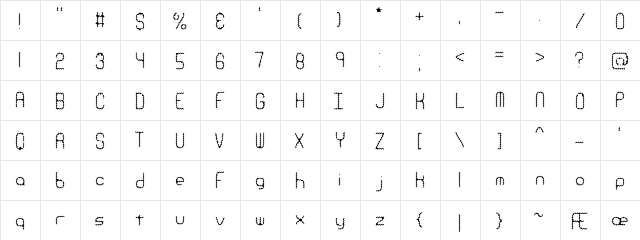
Ravenous Caterpillar BRK Regular
Design Context for Ravenous Caterpillar BRK Typeface
Ravenous Caterpillar BRK takes a measured approach to typography — its balanced proportions and neutral character make it a reliable workhorse for both digital and print work.